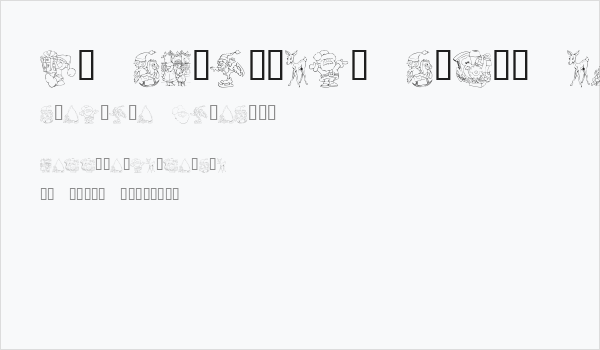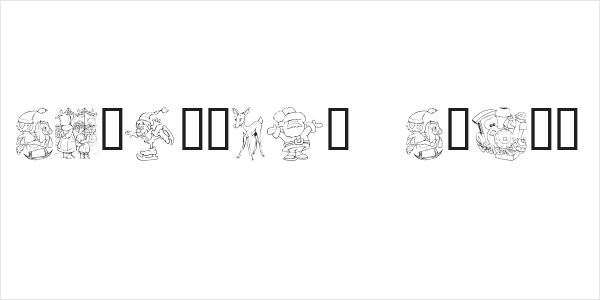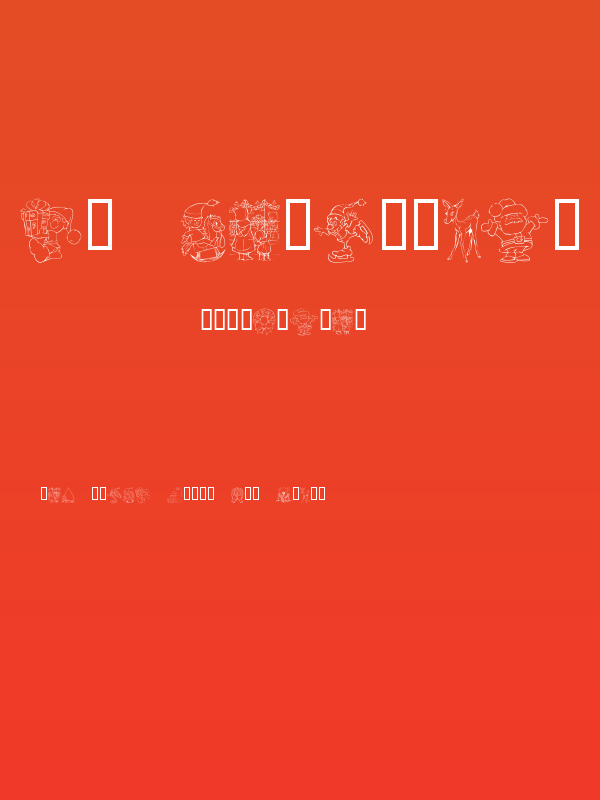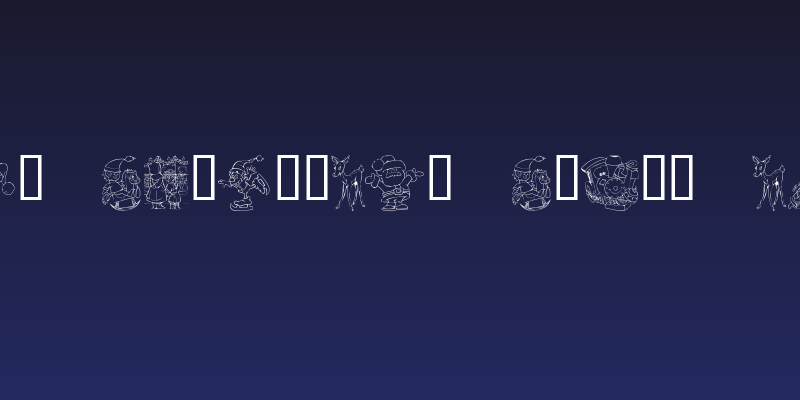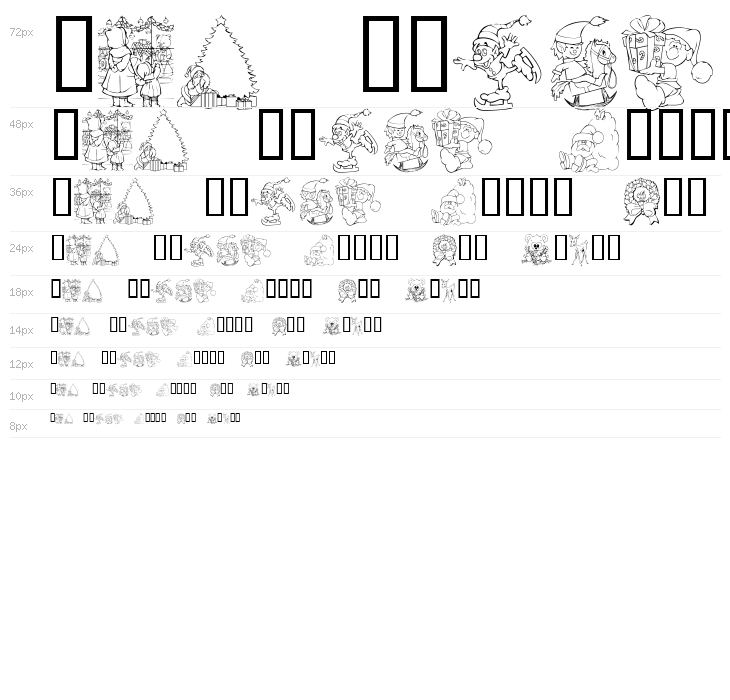
KR Christmas Color Me Font
KR Christmas Color Me Description
This is a decorative and playful font featuring whimsical Christmas-themed illustrations in place of traditional alphanumeric characters. Each character is represented by a unique holiday image, such as Santa Claus, Christmas trees, wreaths, and other festive elements. The style is highly illustrative, making it suitable for creative and festive projects. The font is not designed for standard text but rather for decorative purposes where each character acts as a standalone graphic.
| Proposed Projects | Ideal for holiday greeting cards, festive posters, Christmas-themed crafts, and decorative projects where a playful and thematic touch is desired. |